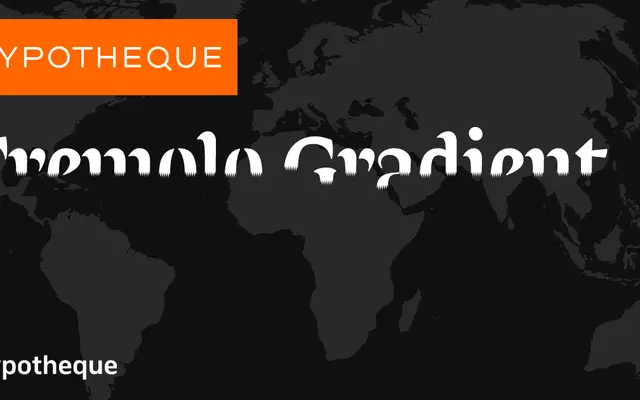
Tremolo Gradient
A layered gradient display system from Typotheque, built from paired top and bottom layers that combine to produce smooth chromatic transitions across letterforms.
Part of the broader Tremolo type system, the Gradient subfamily provides six layers in three pairs (A, B and C), each split into a Top and Bottom component. Overlaying the paired layers produces gradient colour effects across the glyphs, suited to poster, exhibition and social media work. The system sits alongside Tremolo Display, Text, Stencil and Sans families, allowing designers to mix gradient and solid treatments within a single typographic family.
Tremolo Gradient is a layered display type system with top and bottom gradient layers designed to be stacked for chromatic gradient effects, placing it firmly in the display category with a specialised layering subcategory.